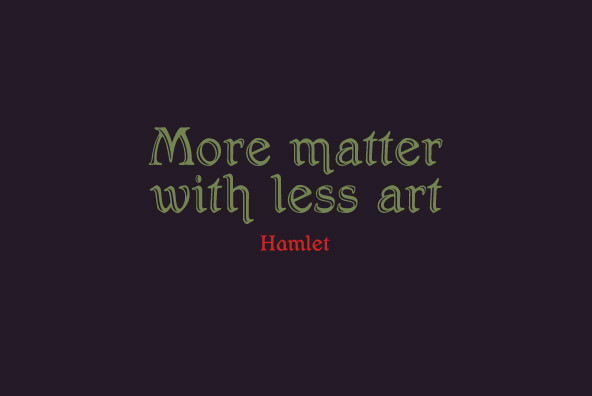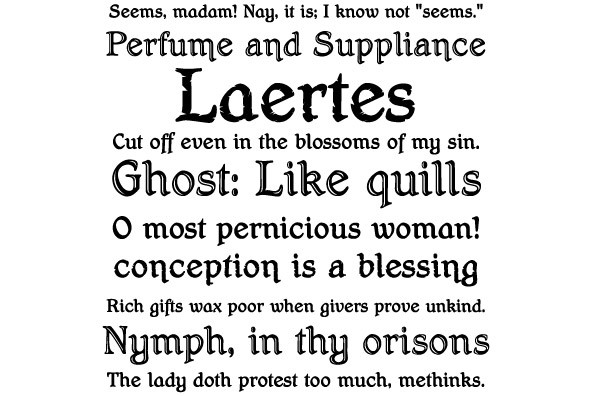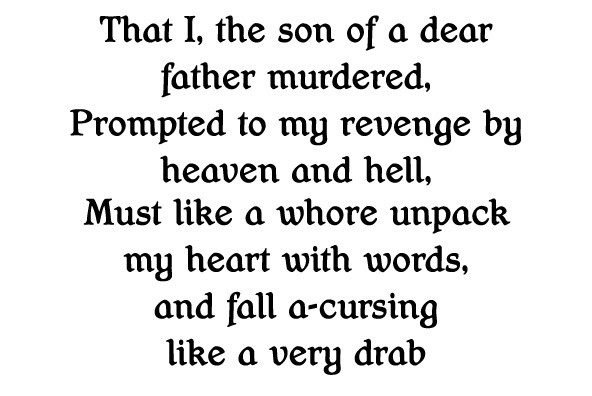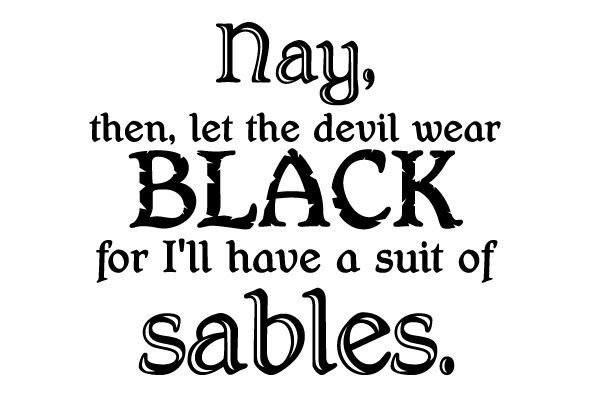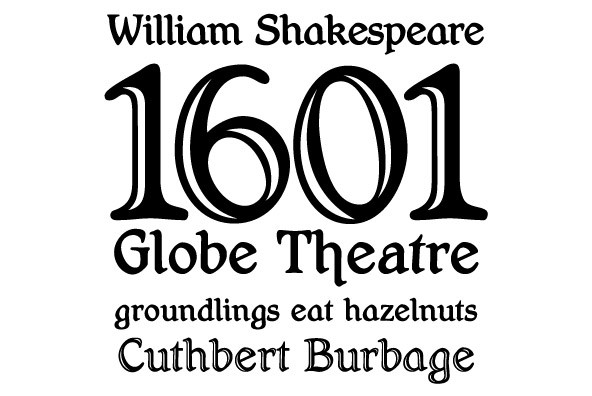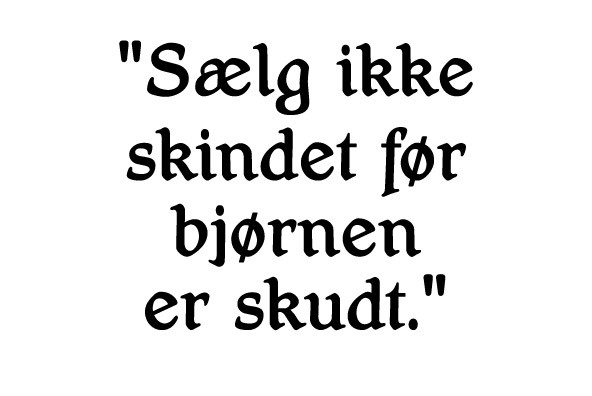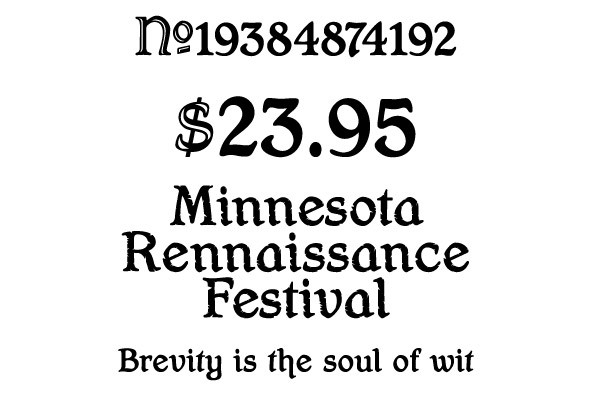
Hamlet
Based on a specimen of an obscure and uncredited old face called Kitterland, Hamlet is one of those curiosities hardly ever noticed in the world of modern fonts, the kind that infuses a variety of historic Blackletter and calligraphy traits in an otherwise Roman alphabet. Such typefaces, what few of them exist, are almost always classified by typophiles as traditional decorative Roman alphabets. We beg to differ. We think such hybrids are fascinating enough to deserve a classification of their own. And we think today's aspiring letterers and type designers would benefit from paying special attention to this kind of hybrid alphabet, not only because it has much more hand than machine in it, but also because it is a prime example of how to succeed in mixing different lettering techniques into one self-contained and distinctly functional alphabet.
As in any efficient mixture of lettering methods, Hamlet ended up with characters that are uniquely its own, such as the cupped A, M, V, W and Y, the very luscious and inviting curves on the arms of E, F, L and T, both single- and double-story forms of the a, and the humblest, friendliest g and y ever. A dozen alternate characters are sprinkled throughout the character set, so check out the map for a few pleasant surprises.
We also made the Handtooled and Headstone styles because we thought these friendly forms were just crying out for such treatments. The Handtooled version turned out quite lovely, if we may say so ourselves, perhaps even better than the main font. The Headstone version is available as a free bonus to those who purchase the complete Hamlet package.
All Hamlet styles come with lining figures as well as old style ones. Hamlet comes in all popular font formats. The OpenType fonts contain push-button swapping alternates and figures, which come in handy in software programs that support this kind of thing.